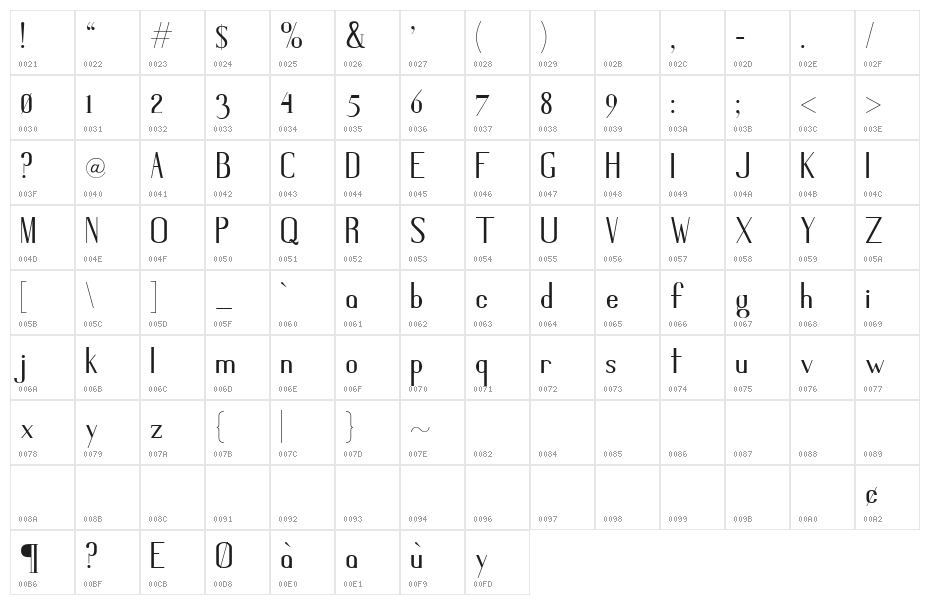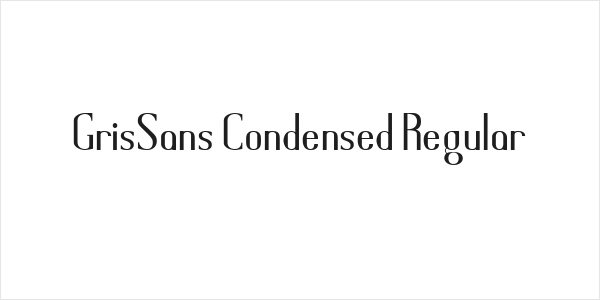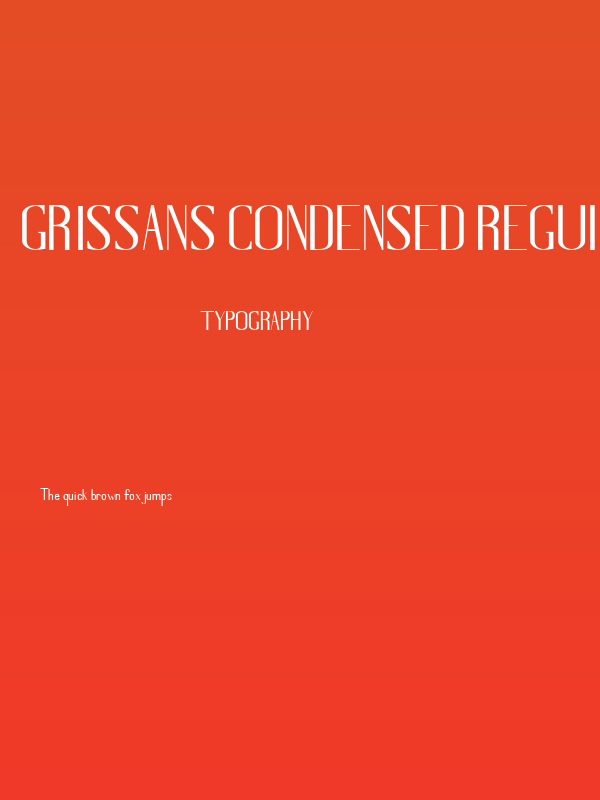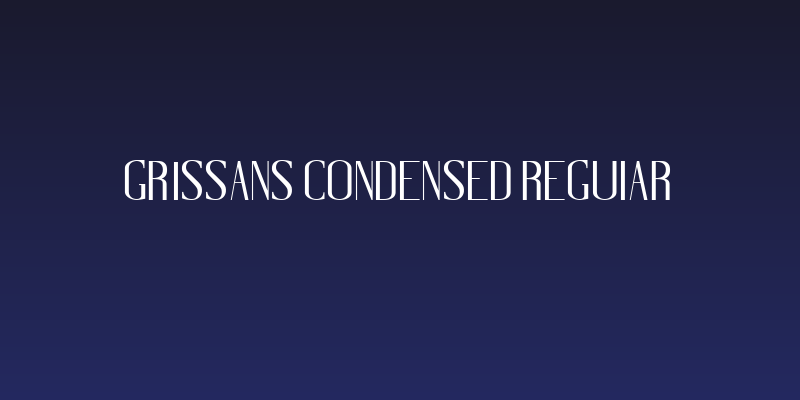
GrisSans Condensed Regular Font
GrisSans Condensed Regular Description
This font presents a sleek and modern aesthetic with its condensed letterforms and clean lines. The uppercase characters are tall and narrow, giving a sense of elegance and sophistication. The lowercase letters maintain a consistent style, with a slightly rounded appearance that adds a touch of softness to the overall design. The numerals are well-proportioned and align seamlessly with the alphabet, ensuring readability and balance. Special characters are thoughtfully designed, maintaining the font's cohesive look. The font's minimal contrast in stroke thickness contributes to its contemporary feel, making it versatile for various design applications.
| Proposed Projects | Ideal for branding, editorial design, and digital interfaces where a modern and sophisticated look is desired. |